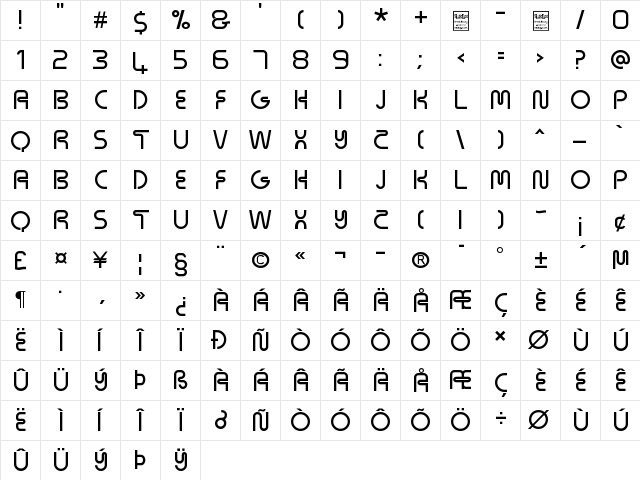
Neons Regular
Design Context for Neons Typeface
Neons channels digital-age aesthetics through its sharp, structured letterforms — ideal for brands that want to signal innovation.
Pro Tip: Use Neons in combination with a neutral sans for body text. Let it define the brand voice in headlines while keeping reading comfortable elsewhere.